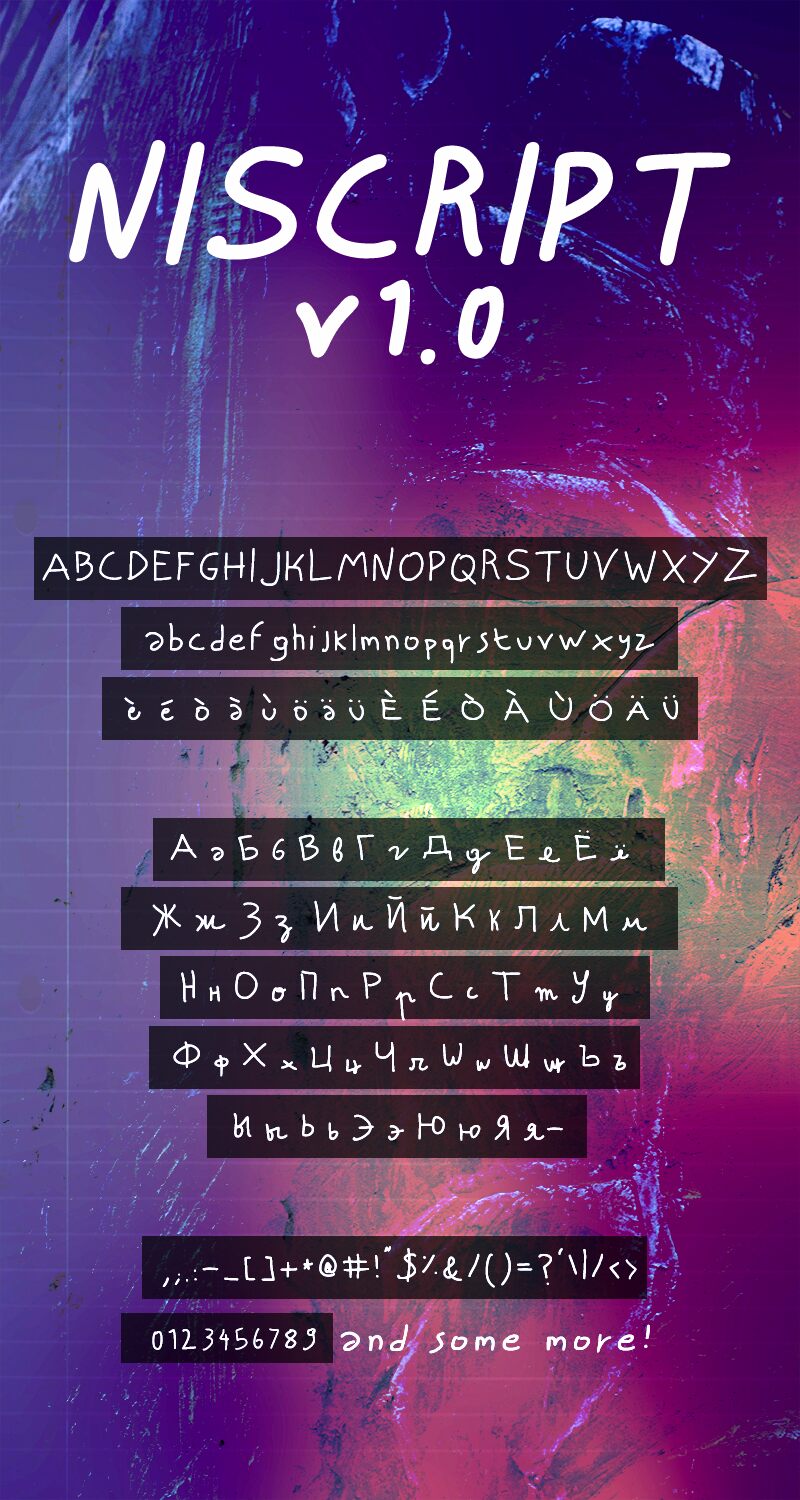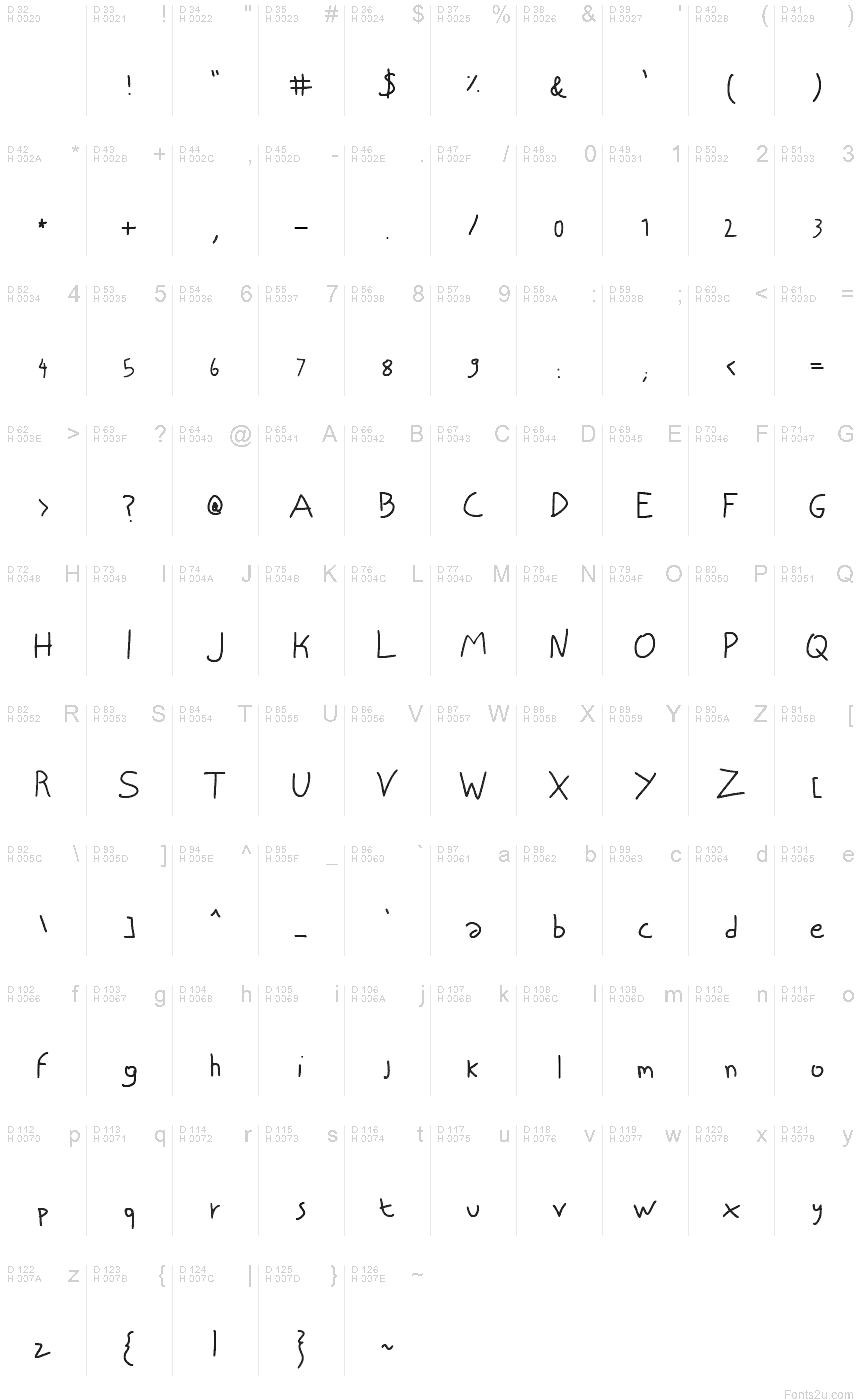
NISCRIPT
Russian, Latin and some mathematical symbol.
This font emulates my handwriting style; I needed it for a project and thought it could be fun to see it used by someone else.